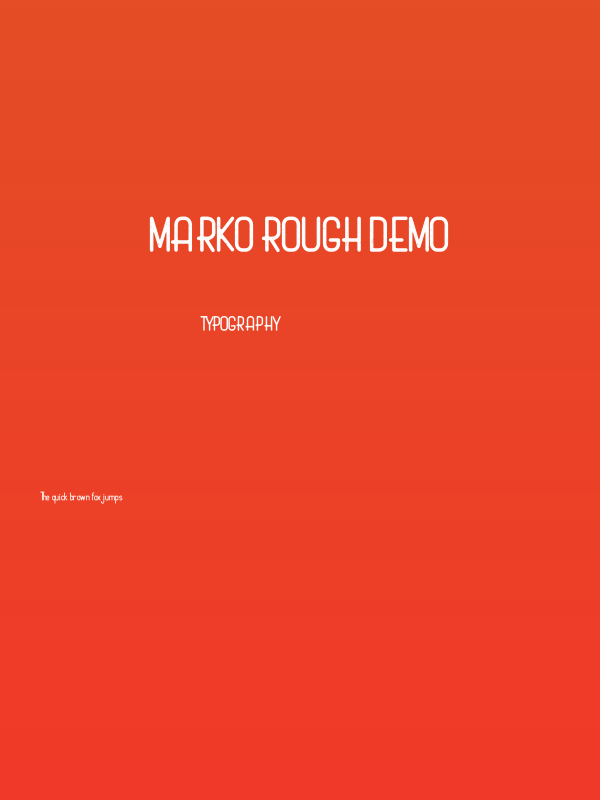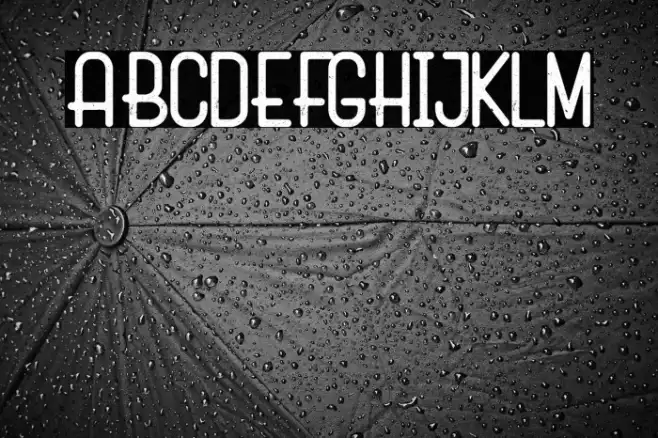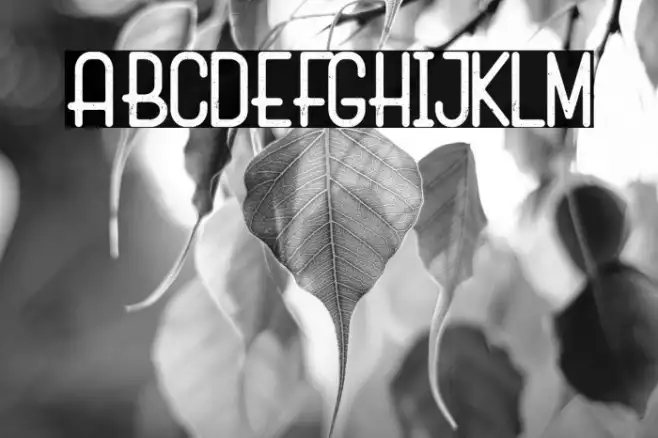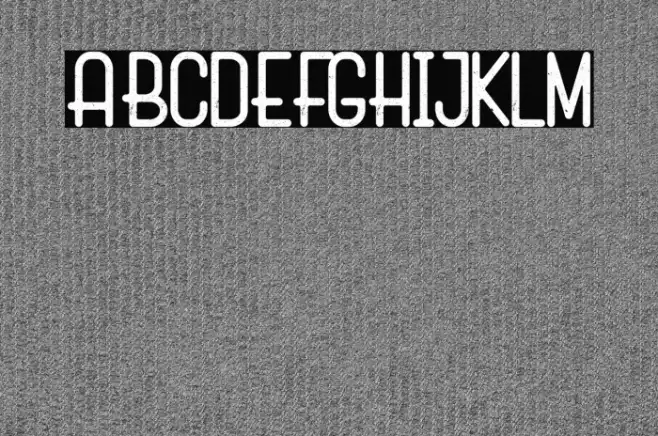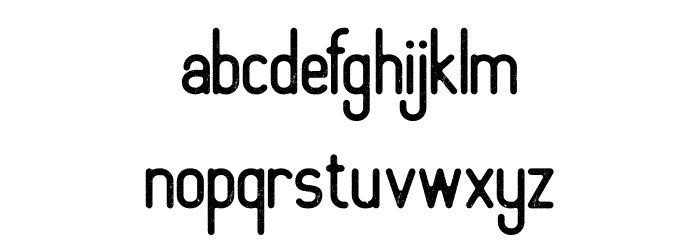
Marko Rough Demo Font
Marko Rough Demo Description
This font features a rough, textured appearance that gives it a handcrafted, vintage feel. The characters are bold and slightly condensed, with rounded edges and a consistent stroke width that adds to its rustic charm. The uppercase and lowercase letters are well-balanced, maintaining a cohesive look throughout. The font's unique style is enhanced by subtle imperfections, making it ideal for projects that require a personal touch. Its legibility is maintained despite the textured design, making it suitable for both display and decorative purposes.